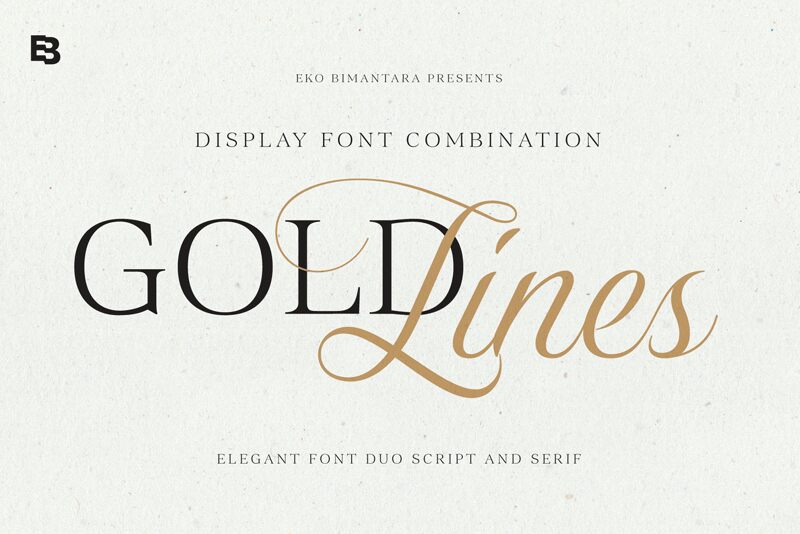
Gold Lines Serif, created by the talented designer Eko Bimantara, is an exquisite and refined font that exudes elegance. With its semi-light weight, this serif font adds a touch of sophistication to any project.
Perfect for luxurious branding, high-end fashion magazines, or upscale wedding invitations, Gold Lines Serif effortlessly captivates attention. Its delicate curves and fine lines create a sense of opulence, making it suitable for projects that demand a timeless and classy aesthetic.
Whether used in print or digital media, this font elevates your design to new heights of refinement and style.